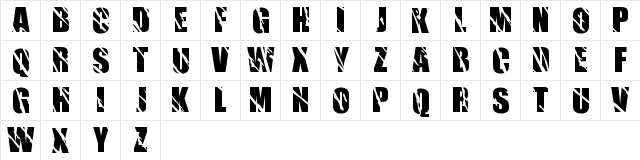
Insomnia Regular
Design Context for Insomnia Typeface
Insomnia is a composed and adaptable typeface that performs quietly and consistently across a wide range of design contexts.